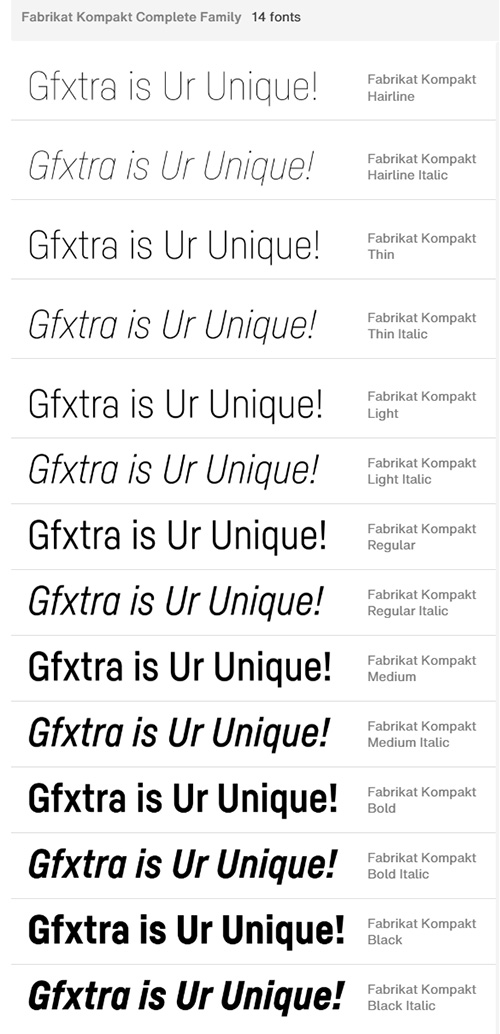
- Fabrikat is a type family designed by Christoph Koeberlin with creative input of Hannes von Döhren. The Sans Serif family is published by HVD Fonts and consists of seven weights plus matching italics. Fabrikat’s geometric design is based on German 20th century engineers’ typefaces and has a plain and precise appearance. The shapes are optically corrected, yet retain an uncut charm. They work best in display as well as text sizes. The type family is equipped for complex, professional typography with OpenType Features like alternate letters, arrows, fractions and an extended character set to support Central and Eastern European as well as Western European Languages.